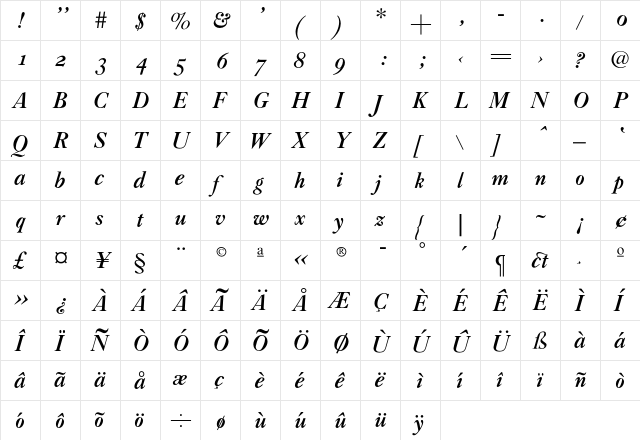
CaslonBoldZH-Italic Regular Font Preview
Design Context for CaslonBoldZH-Italic Typeface
CaslonBoldZH-Italic offers clean, dependable letterforms without strong stylistic allegiance, making it a practical choice for designers who need flexibility. The dynamic lean of this cut emphasises speed and emphasis in any layout. Its bold stroke weight gives it real presence on the page.
Pro Tip: Try CaslonBoldZH-Italic for annotation and caption copy alongside an upright companion — the contrast in angle creates a dynamic but ordered typographic system.